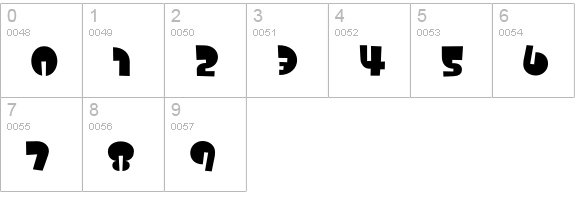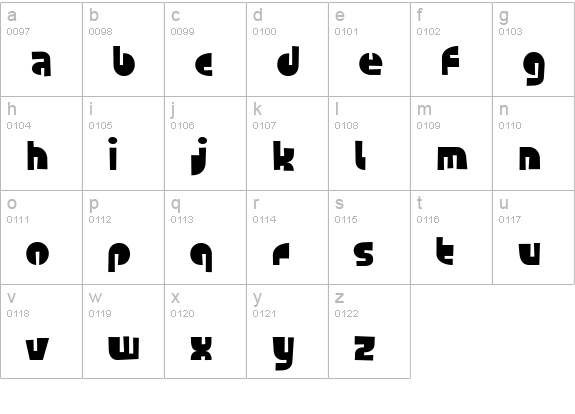
Foonky-Heavy Font Details
Foonky-Heavy is a heavy, high-impact variant in the Foonky typeface family \xE2\x80\x94 well suited to high-impact headlines, posters, and display advertising.
Foonky-Heavy font is a bold and striking typeface that commands attention with its strong and robust design. Its thick strokes and sharp edges make it perfect for making a statement in headlines, titles, and promotional materials. The Foonky-Heavy font exudes power and confidence, making it ideal for projects that require a bold and impactful look. What's even better is that the Foonky-Heavy font is available for free download at FontsMarket.com. This means that you can easily access this impressive font without any cost, making it a valuable addition to your font library. Whether you're working on a design project for print or digital media, the Foonky-Heavy font will elevate your work and leave a lasting impression on your audience. Download it today and experience the bold and dynamic look of the Foonky-Heavy font for yourself!